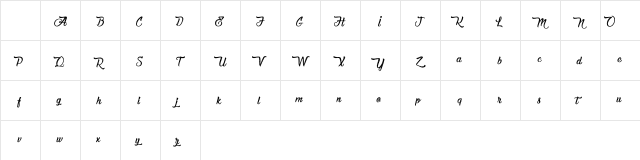
Chocolate and Delight is a composed and adaptable typeface that performs quietly and consistently across a wide range of design contexts. Its slender proportions lend an understated elegance to any composition.